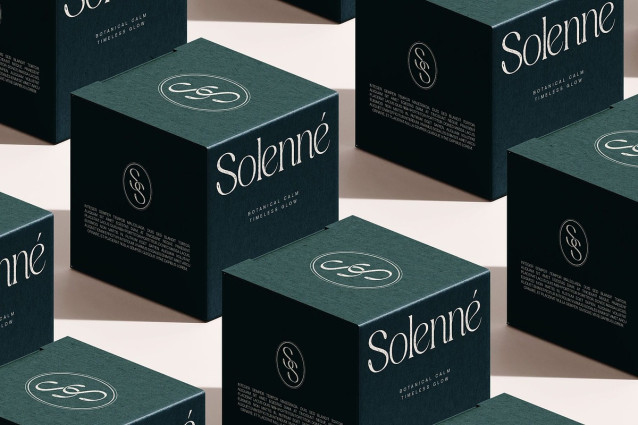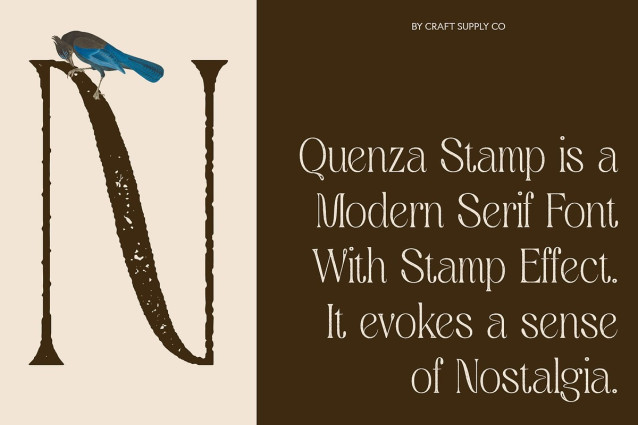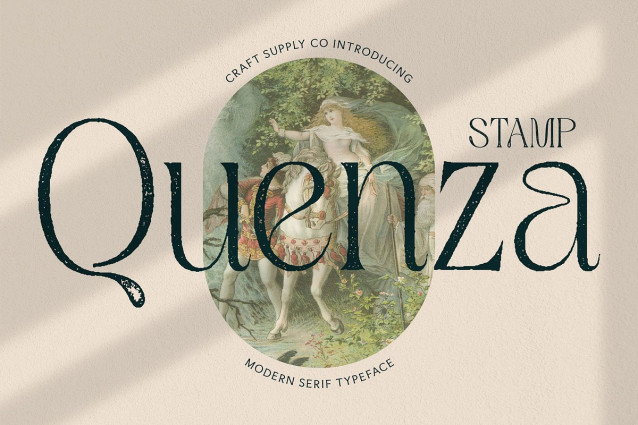
Quenza Stamp Font
Quenza Stamp Font is a modern serif font that merges classic sophistication with a contemporary edge. Its refined structure and sharp serif detailing offer a clean, polished appearance—enhanced by a subtle stamp texture that adds depth, warmth, and tactile charm to every letterform.
Clean Serif Structure with Contemporary Elegance Crafted with a well-balanced form, Quenza Stamp features elegant serifs and slim proportions that reflect both tradition and modernity. Its precise geometry ensures a sleek and professional look, making it a versatile choice for branding, editorial design, and premium visual identities.
Stamp Effect for Organic Visual Appeal The softly distressed stamp effect introduces a delicate worn texture, lending the font an artisanal feel without sacrificing clarity. This visual detail enriches the typeface, creating a sense of depth and character—ideal for projects that value both refinement and originality.
Perfect for Refined, Creative Projects Quenza Stamp is well-suited for luxury branding, fashion editorials, packaging design, and creative communications. Its stylish form combined with the stamp effect delivers an aesthetic that feels elevated yet grounded—perfect for brands seeking a balance of professionalism and personality.